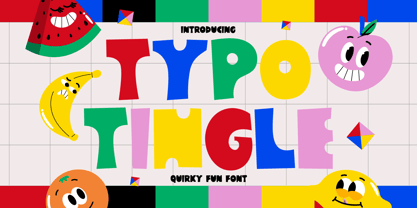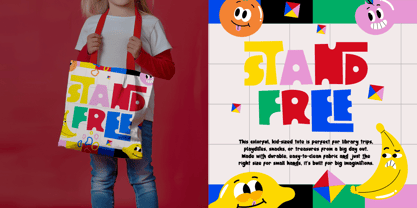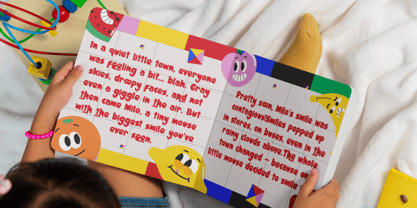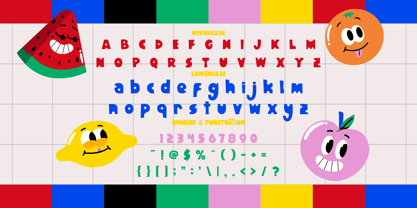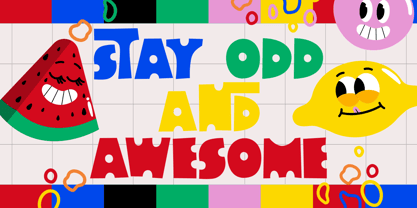
Typo Tingle
by Shanaf
The Typo Tingle Font Family was designed by Yesie Erma Yunita and published by Shanaf. Typo Tingle contains 1 styles. More about this family
Bring out the giggles and good vibes with Typo Tingle, a display font that dances with personality! Each letterform is uniquely quirky, infused with bold and irregular shapes that exude childlike joy and comic charm. With a layout that mimics the organic cut-and-paste play of colorful building blocks, this font is a visual celebration of imagination. The vibrant, asymmetrical letter shapes and cartoonish flair make it instantly engaging for young readers and playful designs. From the uppercase's confident stance to the lowercase's friendly curves, every character radiates fun—ideal for creators looking to break from traditional symmetry and lean into expressive, offbeat creativity.
Perfectly crafted for projects that crave bold color and character, Typo Tingle thrives on packaging, children’s book covers, classroom decor, birthday invites, playful branding, or any media geared towards a young audience. This font isn't just readable—it’s memorable. Whether you're producing a kid-friendly app, designing merch, or creating joyful signage, Typo Tingle delivers the pop, punch, and positivity your project needs. Let your typography smile with this irresistibly energetic and charming typeface!